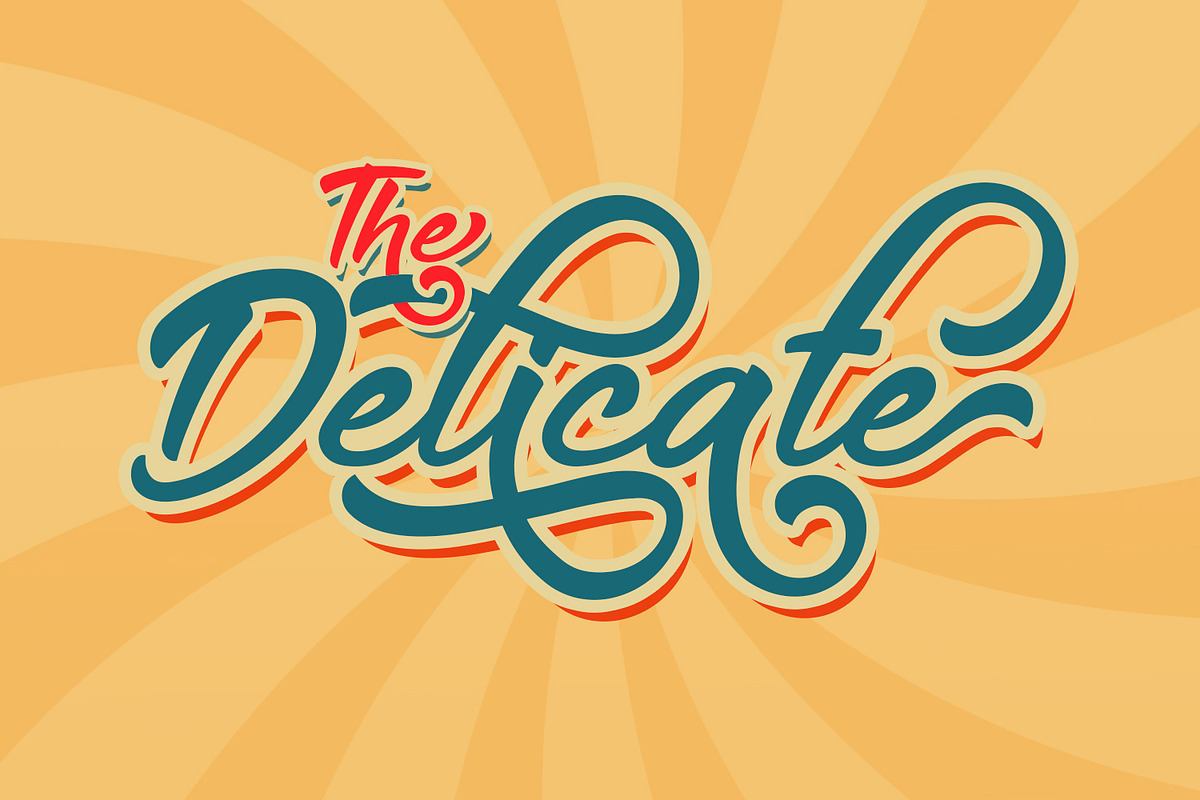
The Delicate Font Free Download is an elegant and refined script typeface that captures the essence of sophistication and grace. With its smooth, flowing curves and soft, delicate lines, this font is perfect for wedding invitations, logos, branding, social media graphics, and any project that requires a touch of luxury and finesse.
Its timeless beauty makes it ideal for creating romantic, upscale designs, whether you're working on a personal project or a high-end brand. The Delicate Font Free Download adds a charming, handwritten quality to your typography that’s both personal and professional.